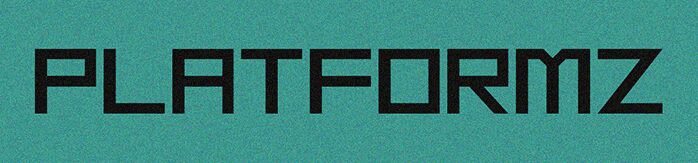
Platformz Regular
Platformz font, designed by Vladimir Nikolic, is a modern sans serif with an expanded style. It showcases geometric, clean lines for a futuristic and structured appearance. With its technological feel, this free font stands out in projects that call for an innovative touch.
Platformz is ideally suited for branding projects, futuristic posters, digital interfaces, book covers, and technology-focused advertisements. Use it to elevate website designs, social media graphics, app development projects, signage design, product packaging, magazine layouts and more creative ventures.